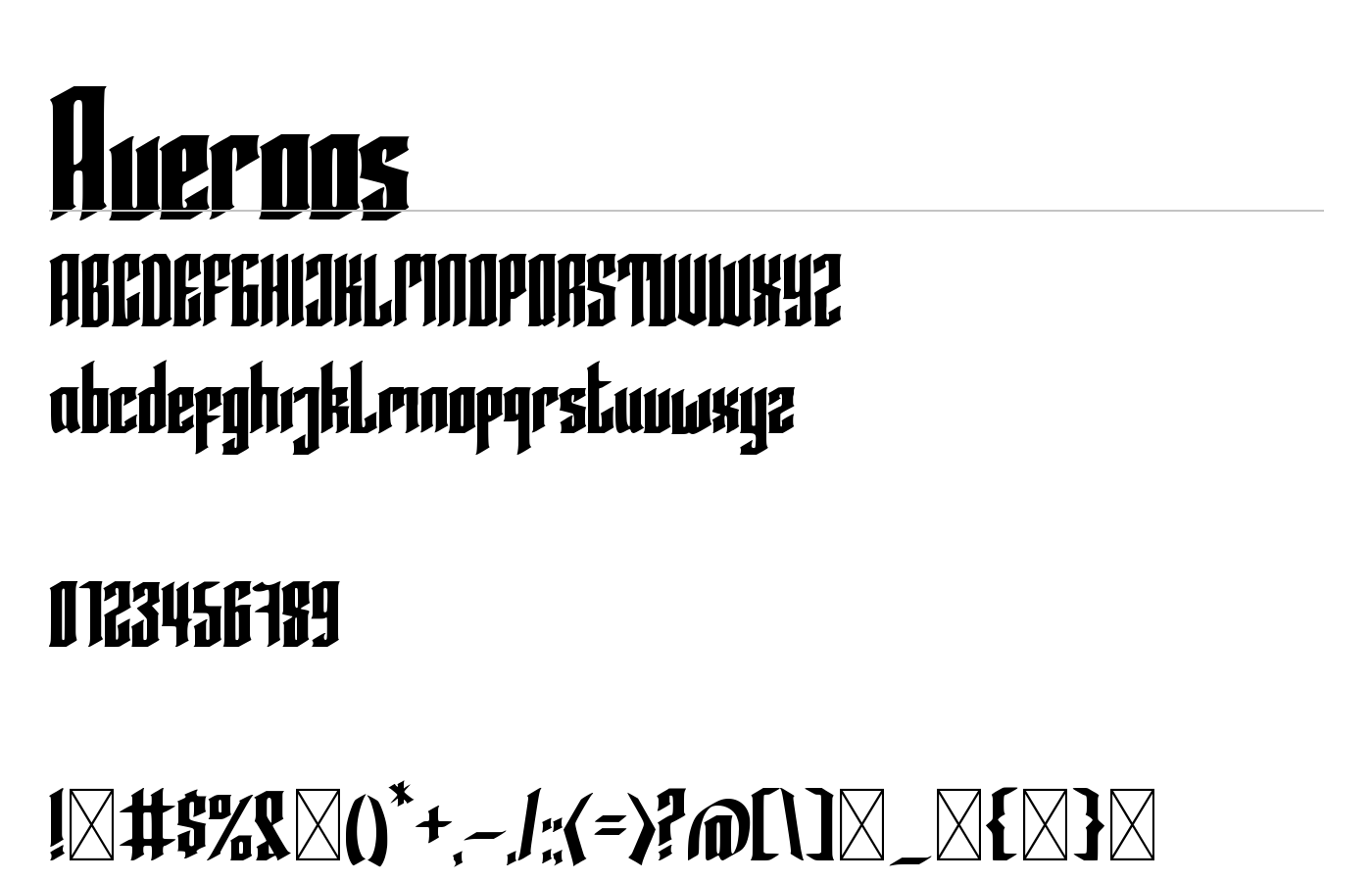
Averoos is a bold, condensed blackletter-inspired serif font characterized by sharp, angular strokes and a strong vertical emphasis. Its dramatic, high-contrast letterforms convey a historic yet edgy vibe, making it ideal for headlines, logos, or designs that seek a gothic or vintage flair with a modern twist. This distinctive font stands out in branding or editorial uses where impact and personality are key.
Averoos Font